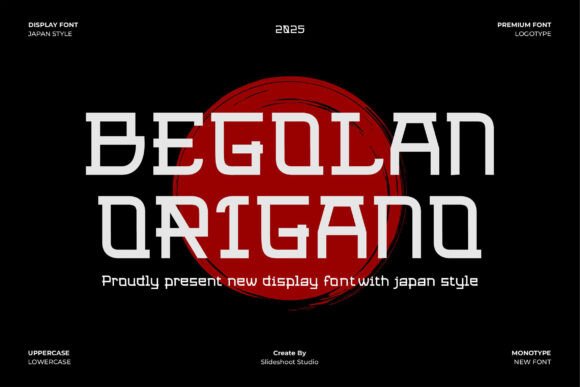
Begolan Origano Font: A Bold Display Font Inspired by Japanese Aesthetics
In the world of typography, fonts play a crucial role in conveying the tone and personality of a brand or design. With the vast array of fonts available, it can be challenging to find one that stands out from the crowd. However, if you’re looking for a font that embodies the unique and exotic spirit of Japanese aesthetics, look no further than the Begolan Origano font. In this article, we’ll explore the features and benefits of this bold display font and how it can elevate your branding, posters, or any design project.
What is Begolan Origano Font?
Begolan Origano is a bold display font that draws inspiration from Japanese design principles. Its angular, dynamic strokes and cultural flair make it a perfect choice for designers looking to add an exotic touch to their work. The font’s unique and artistic style sets it apart from more traditional fonts, making it ideal for projects that require a striking design.
Key Features of Begolan Origano Font
- Bold and Dynamic Strokes: The Begolan Origano font features bold and dynamic strokes that give it a unique and energetic feel.
- Japanese-Inspired Aesthetics: The font’s design is inspired by Japanese aesthetics, making it perfect for projects that require an exotic and cultural touch.
- Angular and Geometric Shapes: The font’s angular and geometric shapes add to its dynamic and striking appearance.
- Perfect for Branding and Posters: The Begolan Origano font is ideal for branding, posters, and any project that requires a bold and eye-catching design.
Benefits of Using Begolan Origano Font
Using the Begolan Origano font can bring several benefits to your design project. Here are a few:
- Stand Out from the Crowd: The font’s unique and artistic style ensures that your design stands out from the crowd and grabs the attention of your audience.
- Add an Exotic Touch: The font’s Japanese-inspired aesthetics add an exotic touch to your design, making it perfect for projects that require a cultural and international feel.
- Enhance Brand Identity: The Begolan Origano font can help enhance your brand identity by giving it a bold and striking appearance.
How to Use Begolan Origano Font
Using the Begolan Origano font is easy and straightforward. Here are a few tips to get you started:
- Branding: Use the Begolan Origano font for your brand’s logo, packaging, or marketing materials to give it a bold and striking appearance.
- Posters and Flyers: The font is perfect for creating eye-catching posters and flyers that grab the attention of your audience.
- Digital Media: Use the Begolan Origano font for your website, social media, or digital advertising to add a unique and exotic touch to your online presence.
Tips for Pairing Begolan Origano Font with Other Fonts
Pairing the Begolan Origano font with other fonts can enhance its beauty and create a unique visual identity. Here are a few tips for pairing the font with other fonts:
- Neutral Fonts: Pair the Begolan Origano font with neutral fonts like Arial, Helvetica, or Times New Roman to create a balanced and harmonious design.
- Script Fonts: Pair the font with script fonts like Pacifico or Great Vibes to add a touch of elegance and sophistication to your design.
- Serif Fonts: Pair the Begolan Origano font with serif fonts like Georgia or Merriweather to create a bold and striking contrast.
In conclusion, the Begolan Origano font is a bold display font that embodies the unique and exotic spirit of Japanese aesthetics. Its angular, dynamic strokes and cultural flair make it perfect for branding, posters, or any project that requires a striking design. With its numerous benefits and versatility, the Begolan Origano font is an excellent choice for designers looking to add a touch of elegance and sophistication to their work.
- What is the Begolan Origano font?: The Begolan Origano font is a bold display font inspired by Japanese aesthetics.
- What is the font perfect for?: The font is perfect for branding, posters, and any project that requires a bold and eye-catching design.